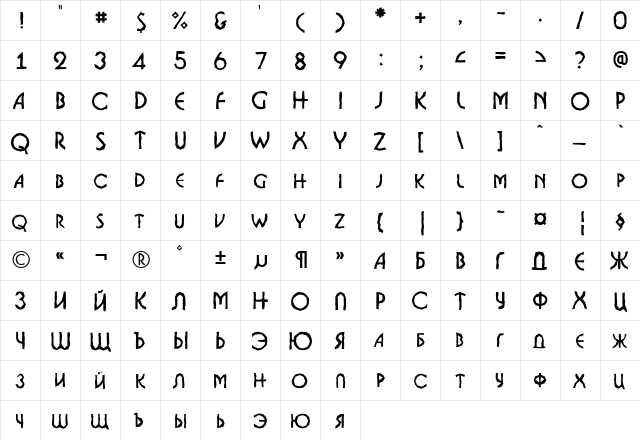
a_BosaNovaCpsBrk Regular Font Preview
a_BosaNovaCpsBrk Regular
a_BosaNovaCpsBrk Regular Font Details
Design Context for a_BosaNovaCpsBrk Typeface
a_BosaNovaCpsBrk is a composed and adaptable typeface that performs quietly and consistently across a wide range of design contexts.